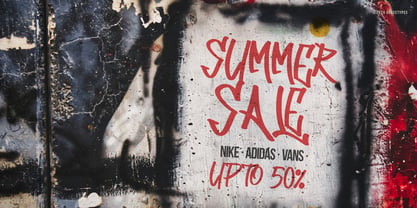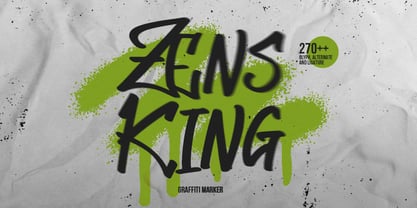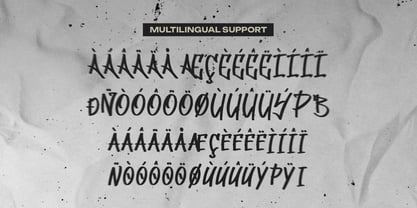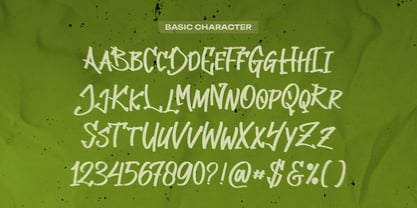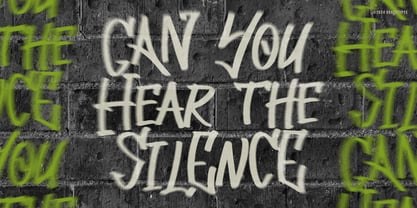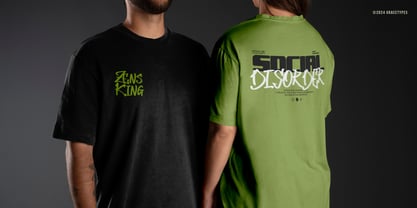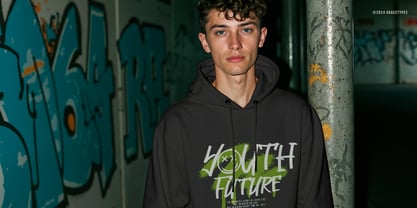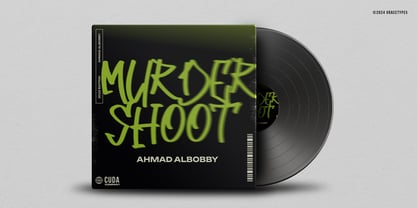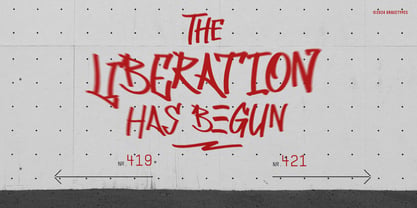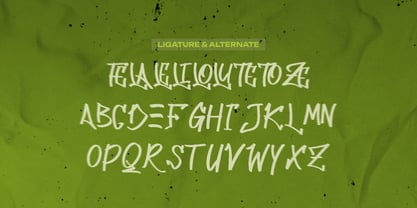
Zens King
by Tini Fitriani
Zens King | Graffiti Marker, from Gracetypestudio, suitable for any projects such as: logos, branding projects, homeware designs, product packaging, mugs, quotes, posters, shopping bags, t-shirts, book covers, name card, invitation cards, greeting cards, label, photography, watermark, special events, and all your other lovely projects that need a Graffiti Marker taste.
• Regular and Italic
• Alternate and Ligature
• Fonts include multilingual support